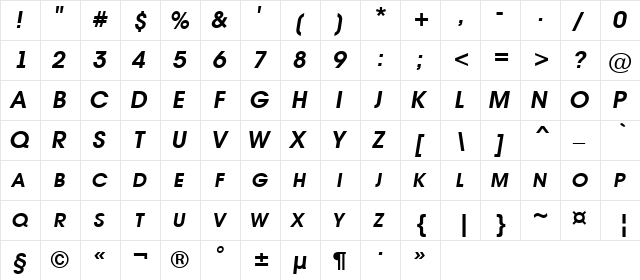
a_AvanteTitlerCpsUpC BoldItalic Font Preview
Design Context for a_AvanteTitlerCpsUpC Typeface
a_AvanteTitlerCpsUpC takes a measured approach to typography — its balanced proportions and neutral character make it a reliable workhorse for both digital and print work. The dynamic lean of this cut emphasises speed and emphasis in any layout. The heavy weight commands attention and anchors typographic hierarchies.
Pro Tip: Try a_AvanteTitlerCpsUpC for annotation and caption copy alongside an upright companion — the contrast in angle creates a dynamic but ordered typographic system.